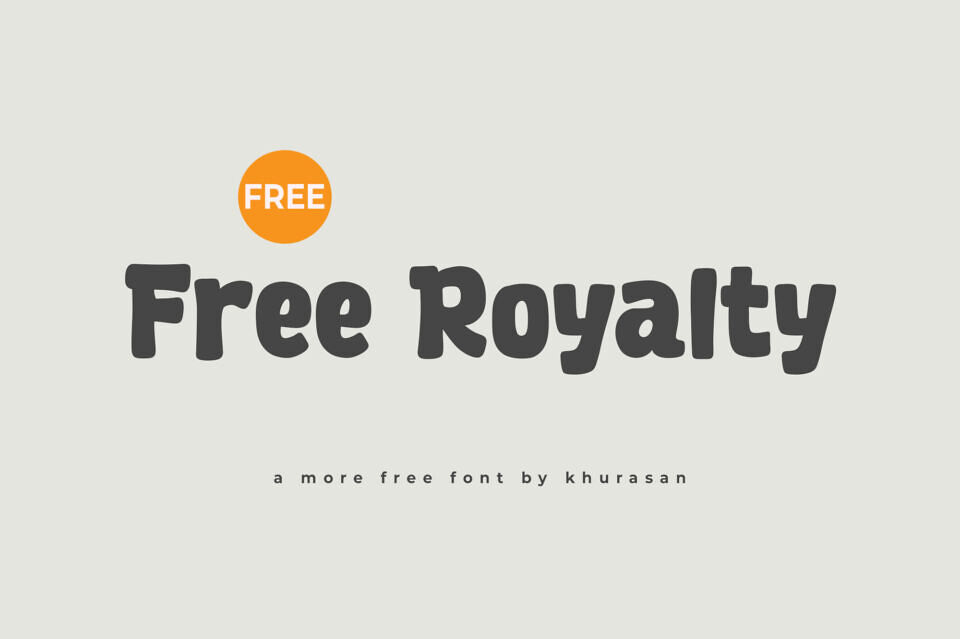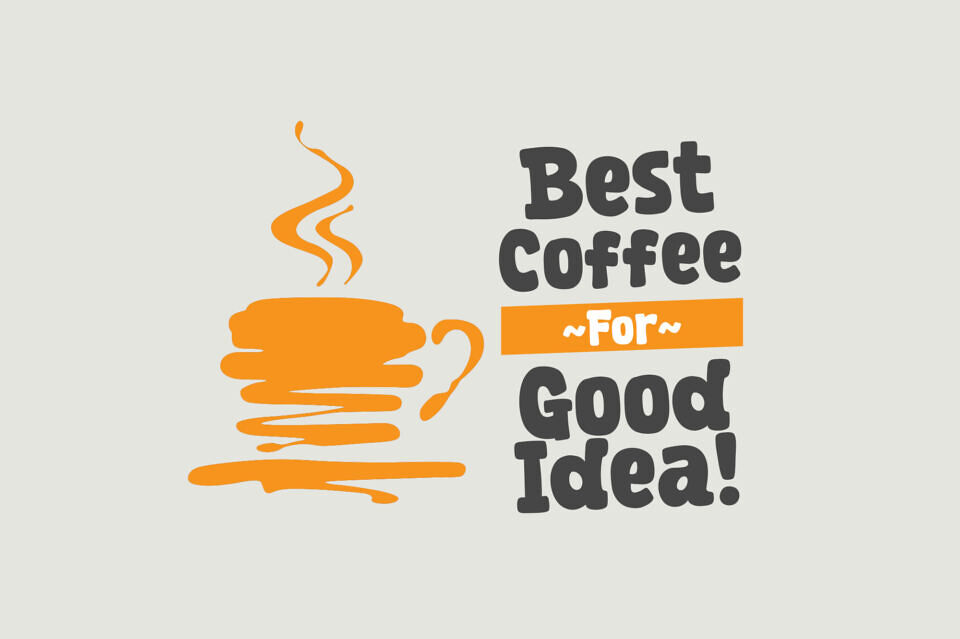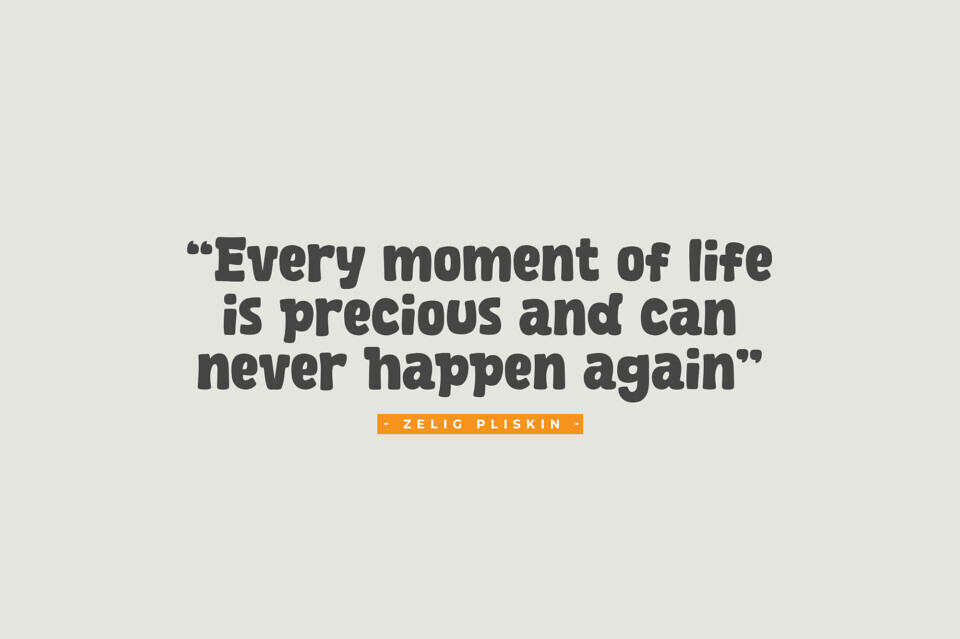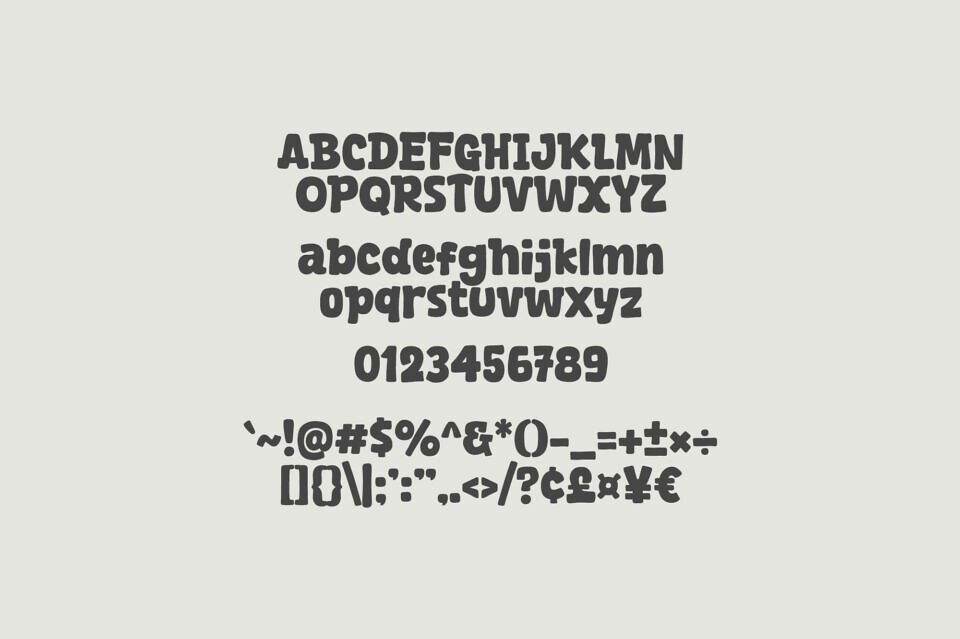
Free Royalty is a modern and cute display font perfect for posters, logos, magazines, book covers, banners, and many more! Get this amazing font, and use it to create lovely designs.